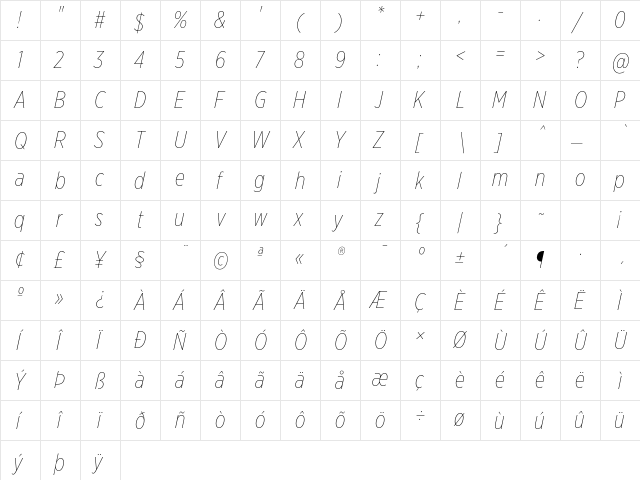
Gotham XNarrow Thin Italic Font Preview
| Foundry | Hoefler & Frere-Jones |
| Designer | Hoefler & Frere-Jones |
Design Context for Gotham XNarrow Typeface
Gotham XNarrow takes a measured approach to typography — its balanced proportions and neutral character make it a reliable workhorse for both digital and print work. The dynamic lean of this cut emphasises speed and emphasis in any layout. Its slender proportions lend an understated elegance to any composition. Its narrow stance lets it pack a punch even in space-constrained designs.
Pro Tip: Try Gotham XNarrow for annotation and caption copy alongside an upright companion — the contrast in angle creates a dynamic but ordered typographic system.